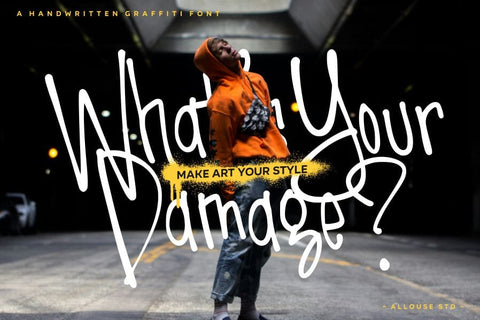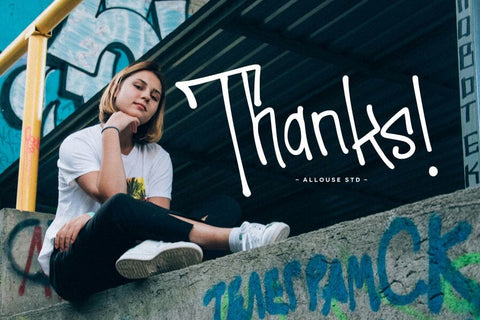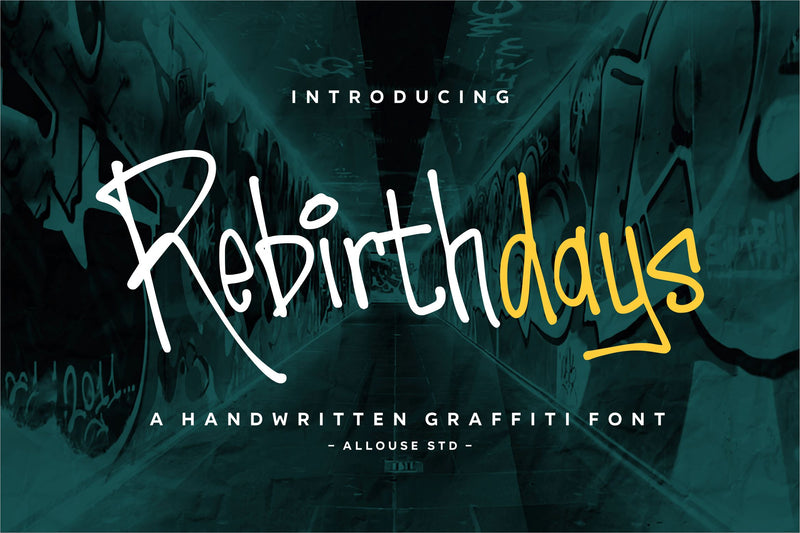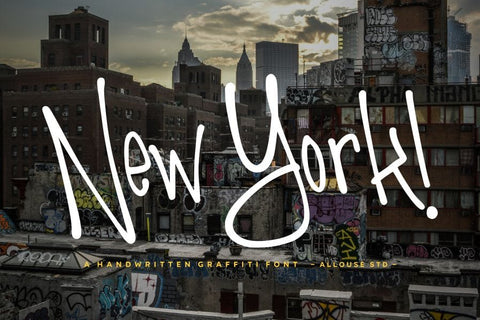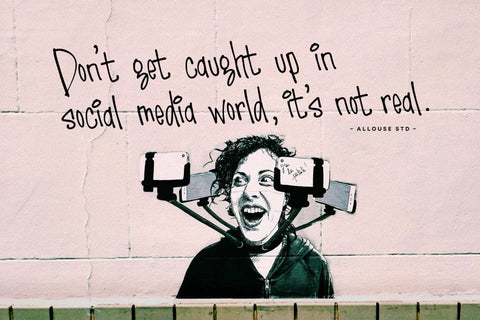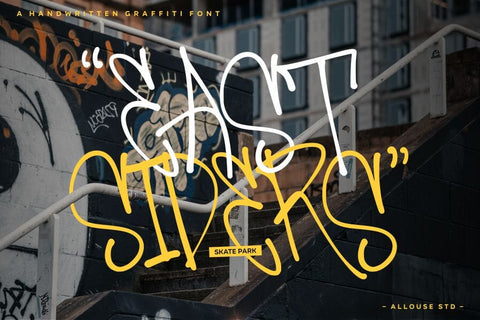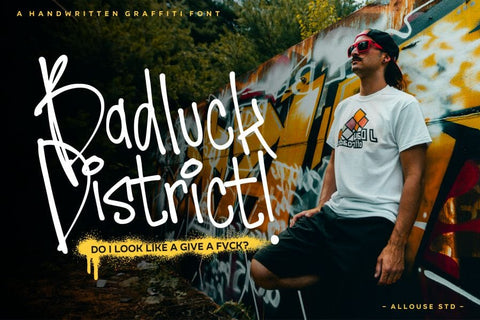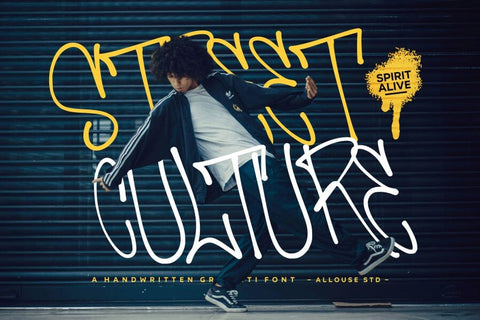
Rebirthdays
Introducing by Allouse.Studio
Proudly Present, Rebirthdays
Rebirthdays A Handwritten Graffiti Font
Rebirthdays is perfect for product packaging, branding project, megazine, social media, wedding, or just used to express words above the background.